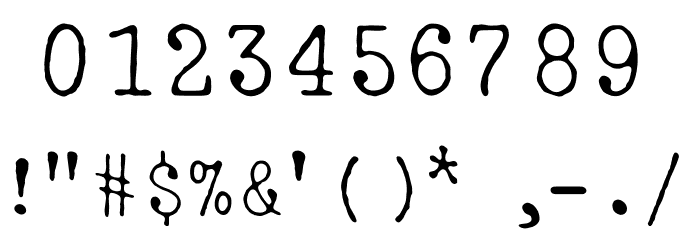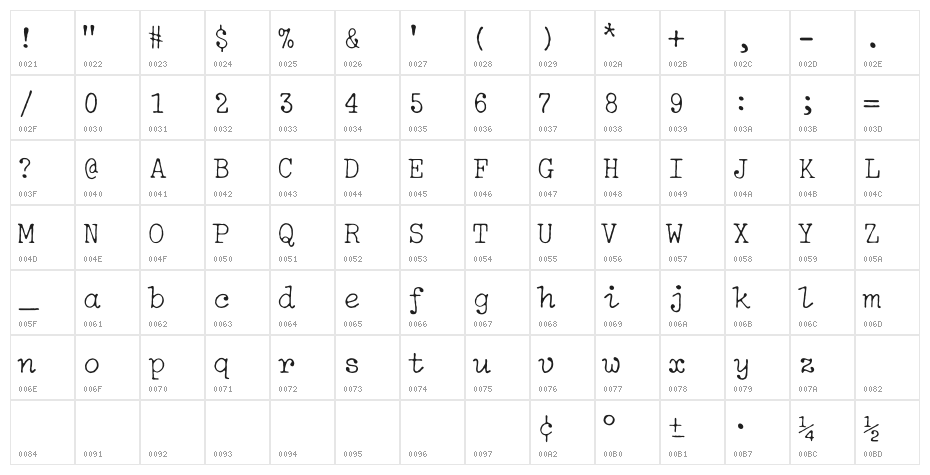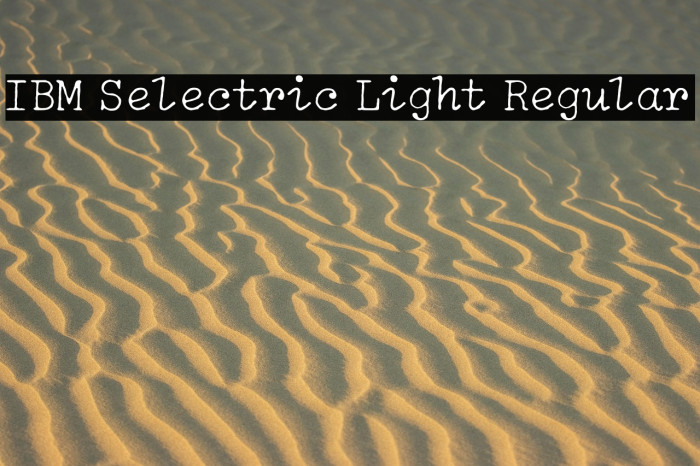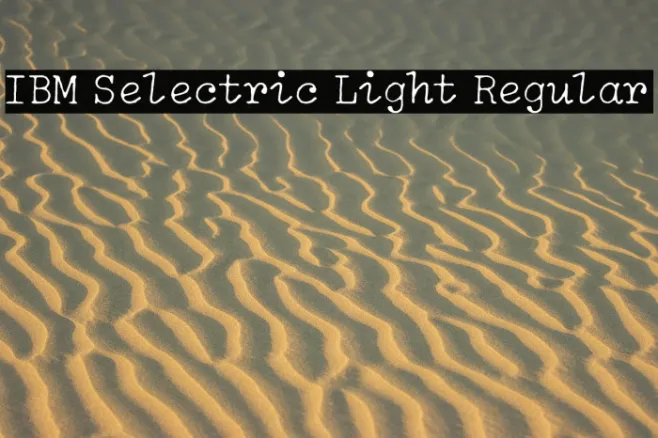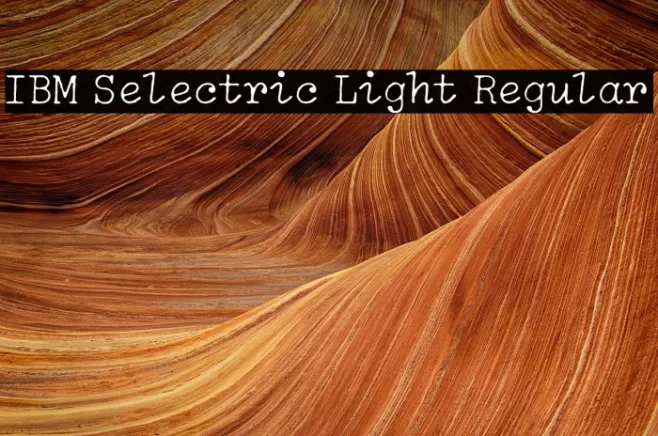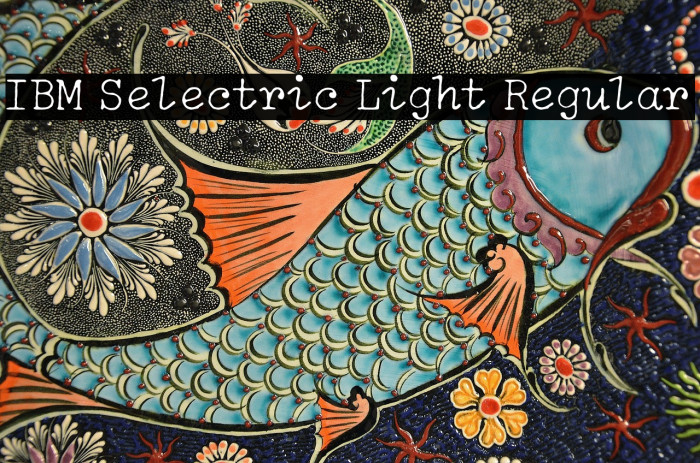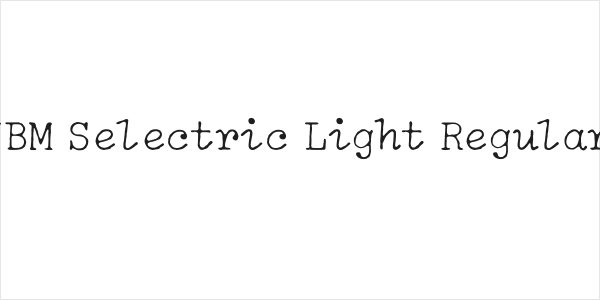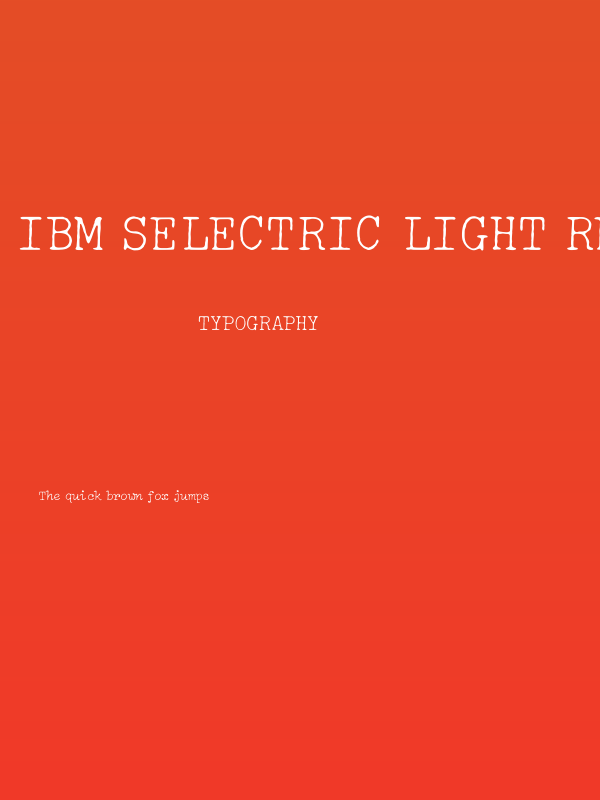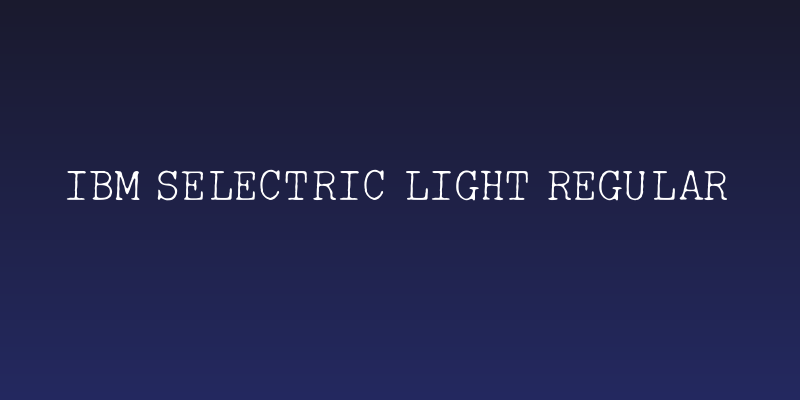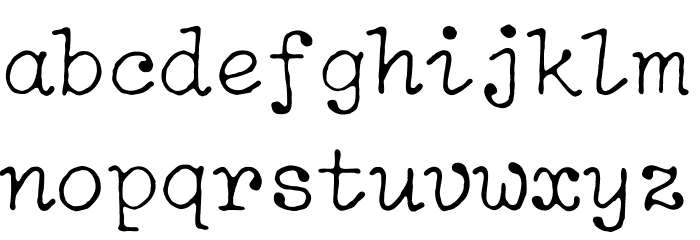
IBM Selectric Light Regular Font
IBM Selectric Light Regular Description
This typeface features a classic, typewriter-inspired design with a distinct vintage appeal. The characters are slightly irregular, giving them a hand-crafted feel that adds warmth and personality. The uppercase letters are bold and prominent, while the lowercase letters maintain a consistent flow with subtle variations in stroke width. Numbers and special characters follow the same aesthetic, ensuring a cohesive look across all text. The font's unique charm makes it suitable for projects that require a touch of nostalgia or a retro vibe.
| Proposed Projects | Ideal for retro-themed designs, vintage posters, typewriter-style documents, and creative branding projects. |